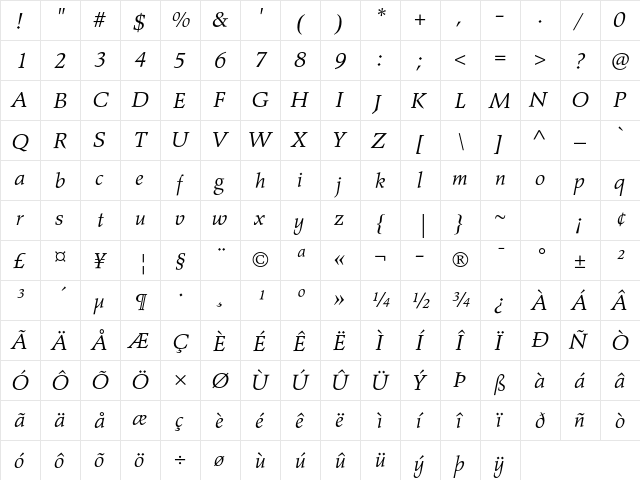
Agfa Wile Roman Std Italic
Design Context for Agfa Wile Roman Std Typeface
Agfa Wile Roman Std offers clean, dependable letterforms without strong stylistic allegiance, making it a practical choice for designers who need flexibility. The dynamic lean of this cut emphasises speed and emphasis in any layout.
Pro Tip: Use Agfa Wile Roman Std for emphasis, pull quotes, and subheadings where its slanted energy can add rhythm to the layout.